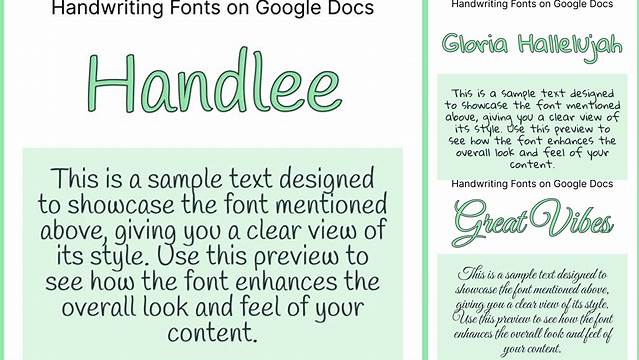
Bad Handwriting Fonts For Google Docs: The Ultimate Guide
Hey guys! Ever wanted to give your Google Docs a personal, handwritten feel? You're in the right place! We're diving deep into the world of bad handwriting fonts for Google Docs. Whether you're aiming for quirky, cute, or just plain illegible (kidding!), this guide will help you find the perfect font to spice up your documents. Let’s get started!
Why Use Handwriting Fonts in Google Docs?
Using bad handwriting fonts can bring a unique charm and personal touch to your Google Docs. Imagine you're drafting a friendly letter, creating an invitation, or even working on a creative writing project. A handwriting font can make your words feel more authentic and less like they came from a robot. Plus, it’s a fun way to stand out from the crowd of Times New Roman and Arial. But remember, legibility is key! You want to add character, not confusion. So, choose wisely and use these fonts to enhance, not detract from, your message. A good handwriting font can also add a bit of whimsy or nostalgia to your work, making it more engaging for your readers. It’s all about finding the right balance between personality and readability.
Finding the Right Handwriting Font
Finding the right bad handwriting font is like finding the perfect pair of shoes – it has to fit just right! Google Docs offers a decent selection of fonts, but sometimes you need to venture out to find something truly special. Websites like Google Fonts, DaFont, and FontSpace are treasure troves of handwriting fonts, both free and paid. When browsing, consider the overall tone you want to convey. Are you going for a playful vibe, a sophisticated look, or something more rugged? Also, think about the font’s legibility. Some handwriting fonts can be a real pain to read, so test them out before committing. Copy and paste a paragraph of text into Google Docs and see how it looks. Does it flow well? Is it easy on the eyes? If not, keep searching! The perfect handwriting font is out there, waiting to be discovered.
Top 5 Bad Handwriting Fonts for Google Docs
Let's dive into some specific bad handwriting fonts that work well with Google Docs. Here are five that I personally think are awesome:
- Permanent Marker: This one is bold, thick, and has that classic marker look. Great for headings or emphasizing points.
- Patrick Hand: A more casual and rounded font that’s easy to read and friendly.
- Coming Soon: This font has a futuristic vibe with a slightly messy handwritten style.
- Indie Flower: A whimsical and slightly quirky font that’s perfect for creative projects.
- Schoolbell: Reminiscent of old-school chalkboards, this font is great for adding a touch of nostalgia.
Each of these fonts brings its own unique flair to your documents. Experiment with them to see which one best suits your style and needs.
Legibility Considerations
Okay, let's talk about legibility. Yes, we're going for that bad handwriting font look, but we still want people to be able to read what we write! Choose fonts that have a good balance between style and clarity. Avoid fonts that are too thin, too squiggly, or have too much overlapping text. If you're using a handwriting font for a large block of text, consider increasing the font size slightly to improve readability. Also, pay attention to the spacing between letters and words. Adjusting the line height can also make a big difference. Remember, the goal is to add character, not to frustrate your readers. So, always prioritize legibility, even when you're going for that intentionally messy look.
Using Handwriting Fonts for Different Types of Documents
Handwriting fonts aren't just for personal letters; you can use them in a variety of documents! For invitations, a bad handwriting font can add a personal and inviting touch. In creative writing projects, it can help set the mood and tone. For presentations, use it sparingly to highlight key points or add a bit of flair. Even in business documents, a subtle handwriting font can make your brand feel more approachable. Just be mindful of the context and audience. A super messy font might not be appropriate for a formal business report, but it could be perfect for a fun internal memo. Experiment and see what works best for you!
Pairing Handwriting Fonts with Other Fonts
To really make your bad handwriting fonts shine, try pairing them with other fonts. A classic combination is to use a handwriting font for headings and a clean, sans-serif font like Open Sans or Lato for the body text. This creates a nice contrast and makes your document more visually appealing. You can also experiment with different font weights and sizes to create visual hierarchy. For example, use a bold handwriting font for the main heading and a lighter weight for subheadings. The key is to create a balance that is both aesthetically pleasing and easy to read. Don't be afraid to try different combinations until you find something that works for you.
When using bad handwriting fonts, there are a few common mistakes to avoid. First, don't overuse them! Too much handwriting font can be overwhelming and difficult to read. Use them sparingly to highlight key points or add a personal touch. Second, don't choose fonts that are too illegible. Remember, your goal is to communicate effectively. Third, don't forget to check the font's licensing. Some fonts are free for personal use but require a license for commercial use. Finally, don't be afraid to experiment! Try different fonts, sizes, and styles until you find something that works for you.
Bad Handwriting Fonts: A Matter of Preference
Ultimately, choosing the right bad handwriting font is a matter of personal preference and the specific needs of your project. What works for one person might not work for another. The important thing is to experiment, have fun, and find fonts that you love and that effectively communicate your message. Don't be afraid to try new things and push the boundaries of design. With a little creativity and experimentation, you can create truly stunning and memorable documents using handwriting fonts.